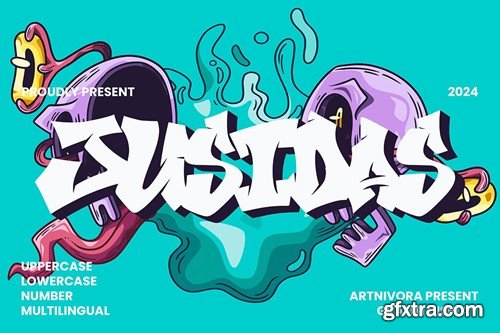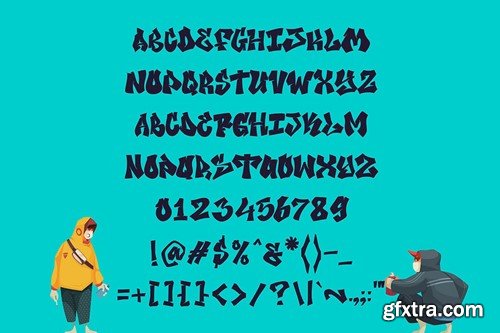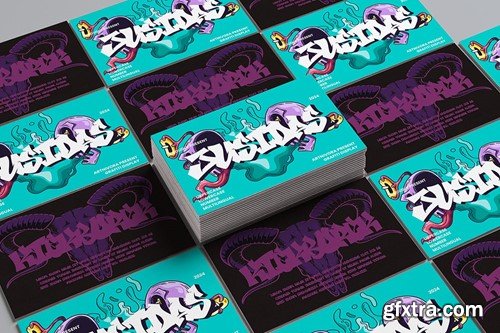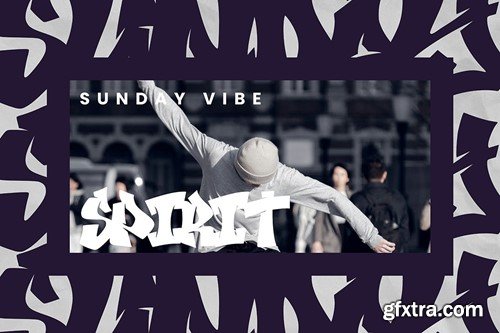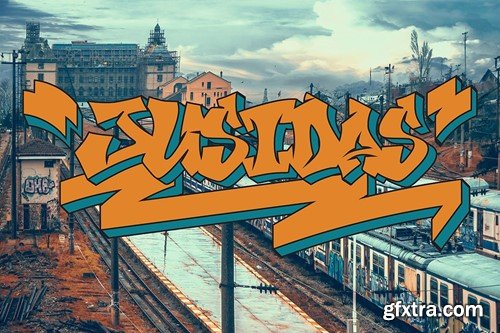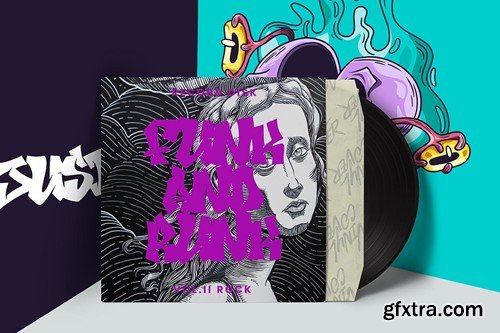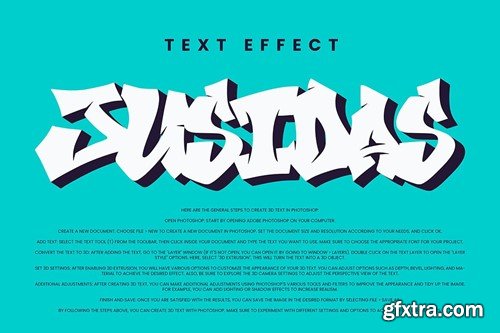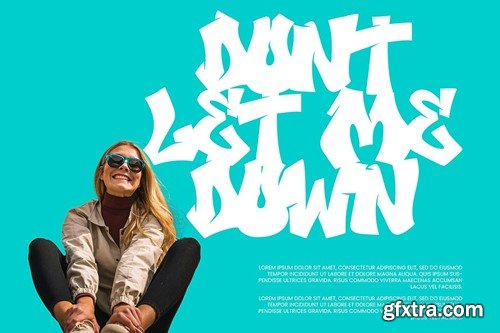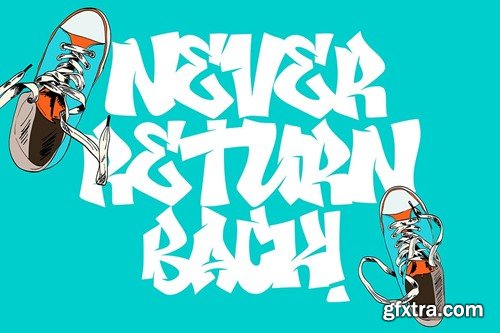
朱西亚 - 草稿字体 N7TQTKQ
Jusidas - Grafiti Display Font N7TQTKQ
Jusidas - Grafiti Display Font
Introducing **Jusidas **, a simple and grafiti display font. So perfect for you who needs a typeface for logo designs, magazine, social media, brochure, and many more.
Features
• Uppercase
• Lowercase
• Numerals
• Multilingual Support